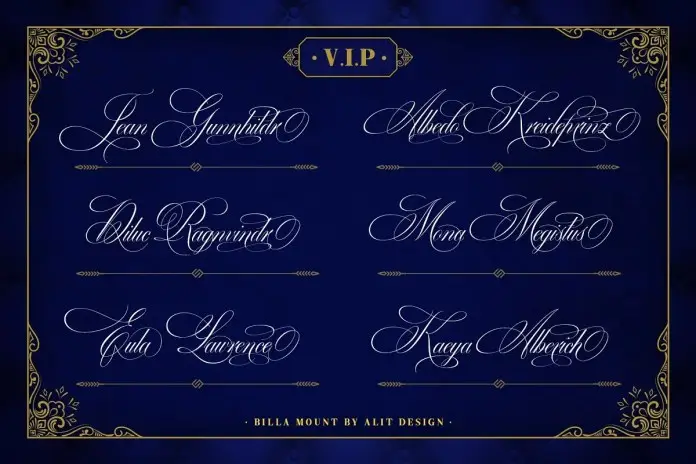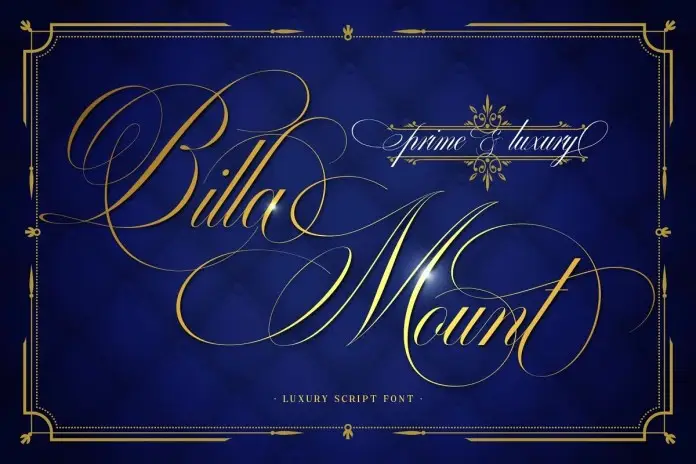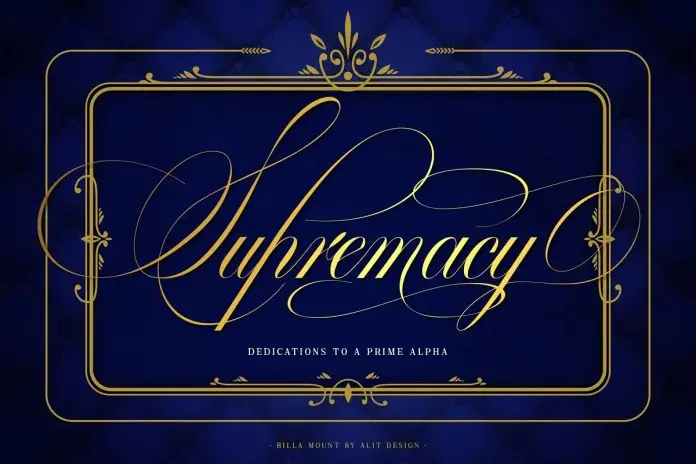
Billa Mount Calligraphy Font
The Billa Mount Calligraphy Font is a beautifully crafted typeface that embodies elegance and sophistication. Perfect for a variety of applications, this font is ideal for branding, logos, invitations, and any project that requires a touch of artistry.
• Style: Calligraphy
• Utilize for elegant branding projects
• Incorporate in wedding invitations and stationery
• Use for artistic web design elements